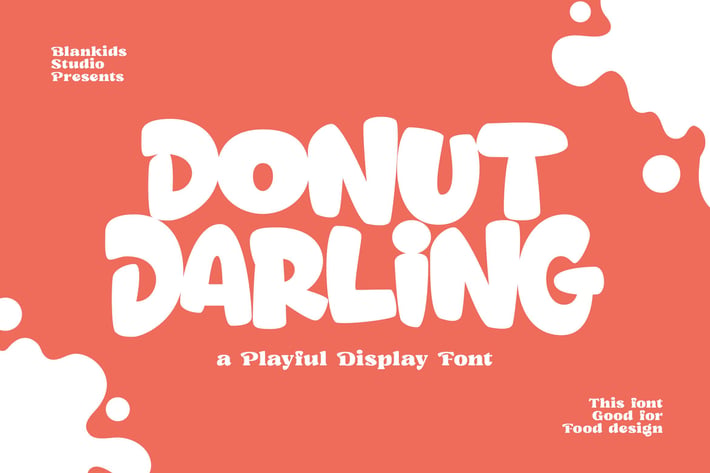
Donut Darling aPlayful Display Font
Donut Darling is a delightful and tempting font, just like a bundle of irresistible donuts. With its thick characters, Donut Darling adds a touch of cheerfulness and modernity to every design. With its cute and playful style, this font is perfect for highlighting the deliciousness in your food product designs. From packaging to promotions, Donut Darling will make your designs even more appetizing!”